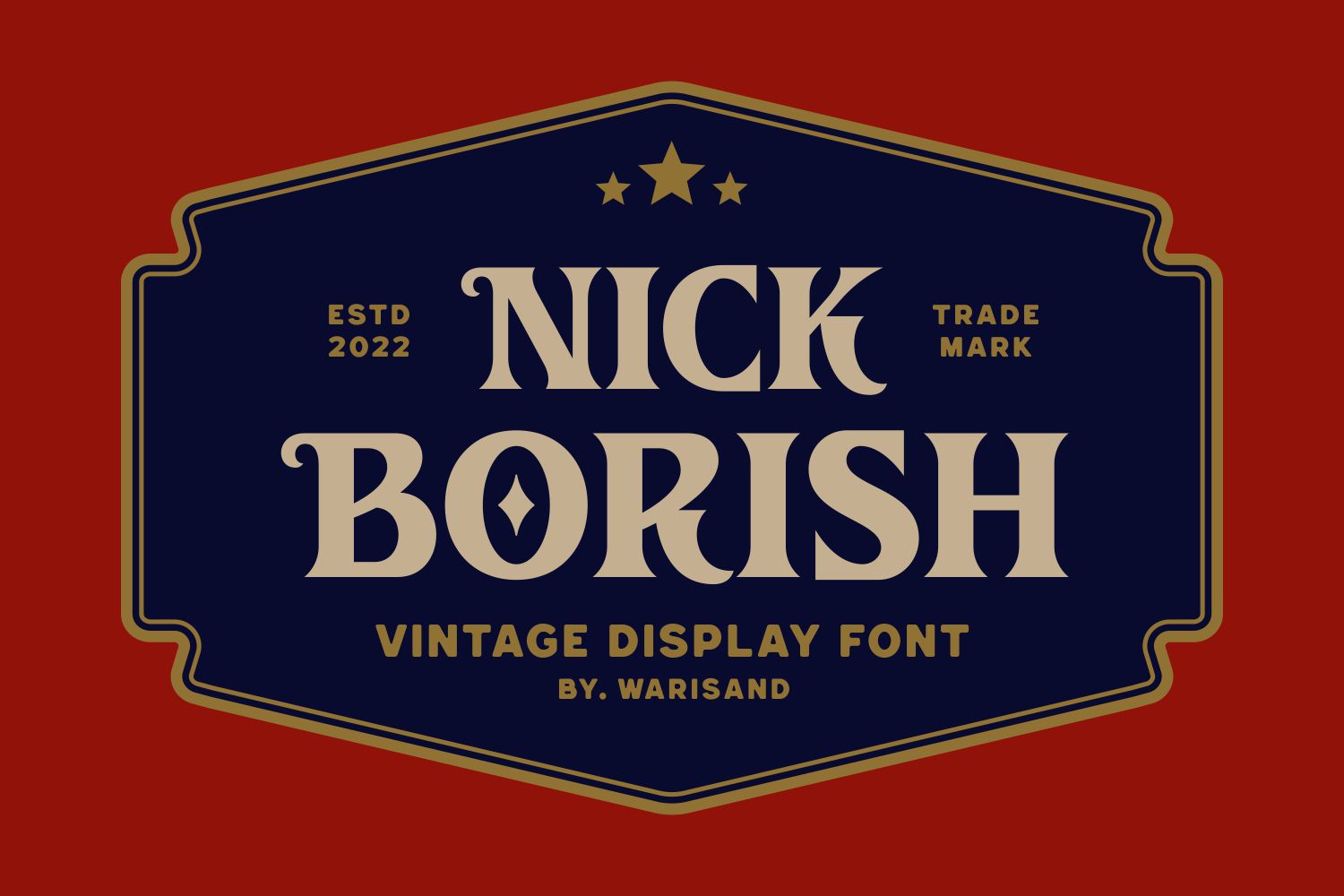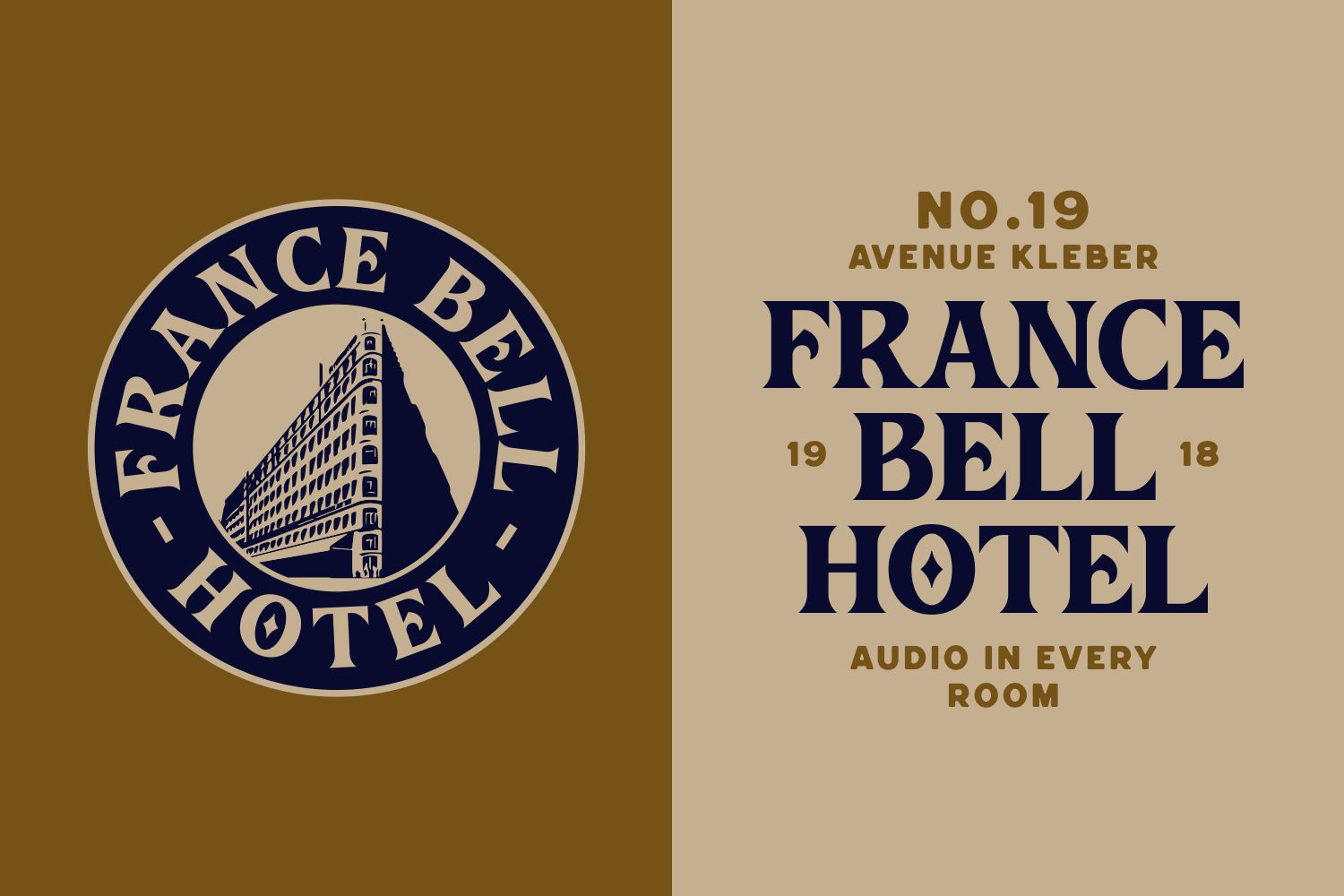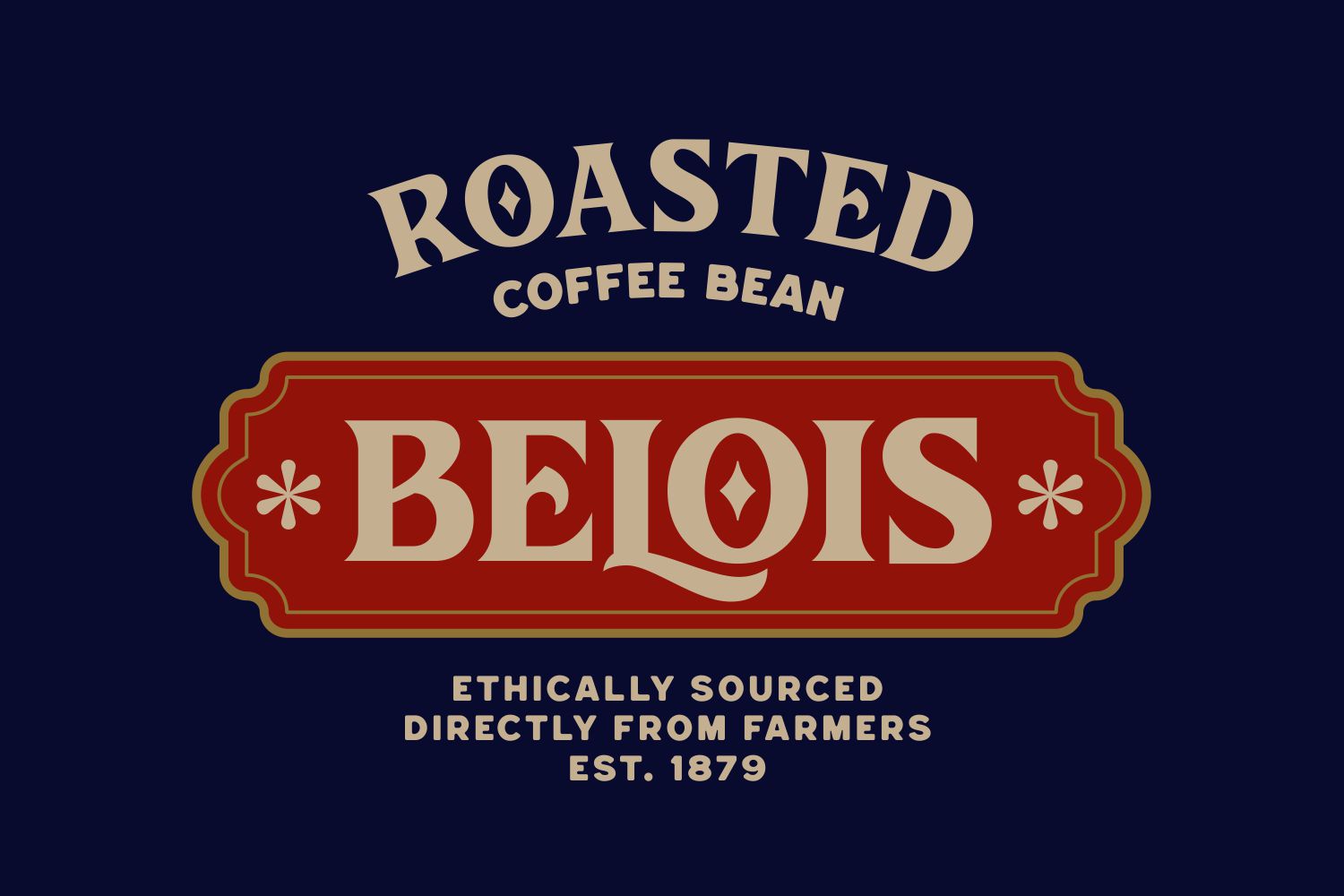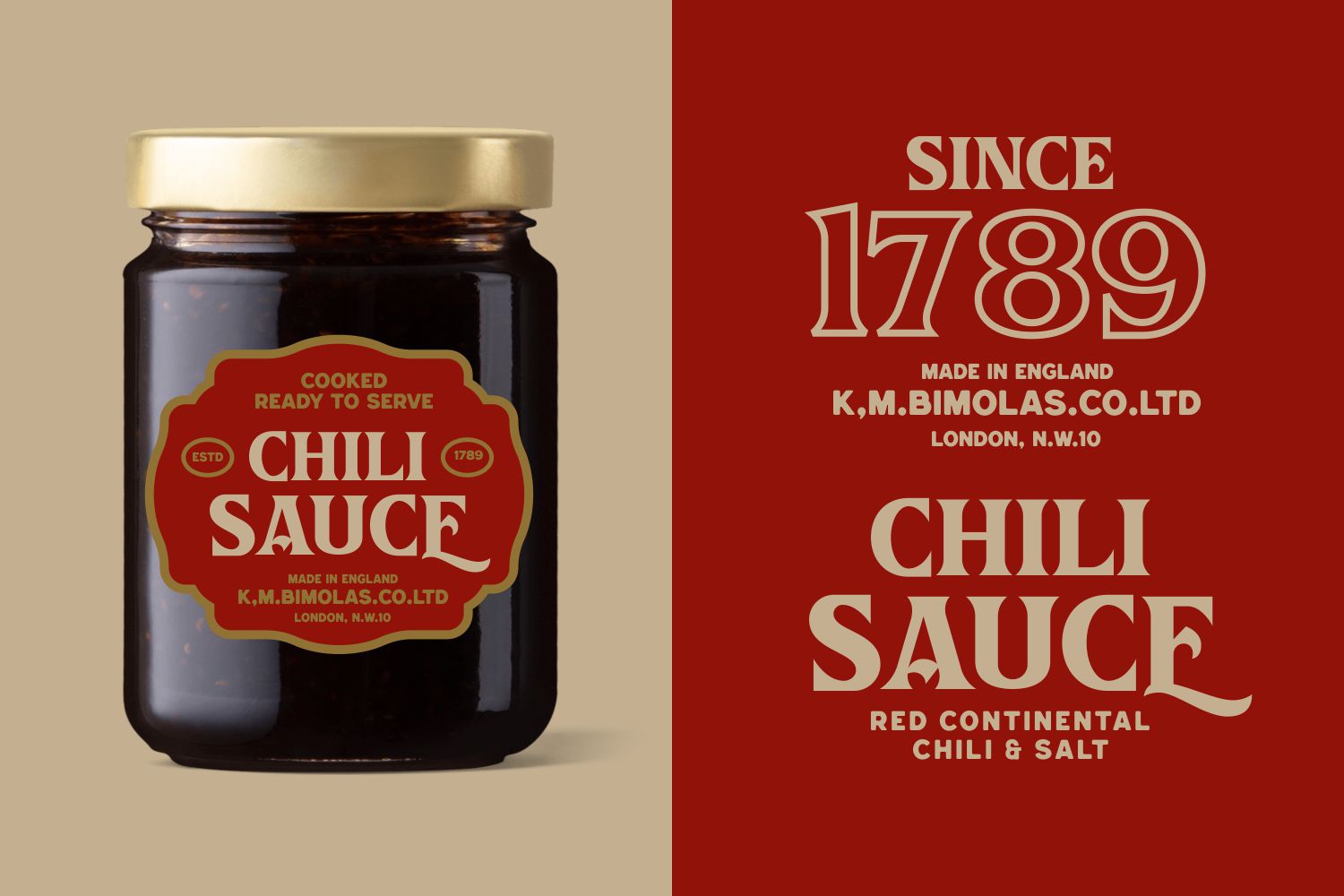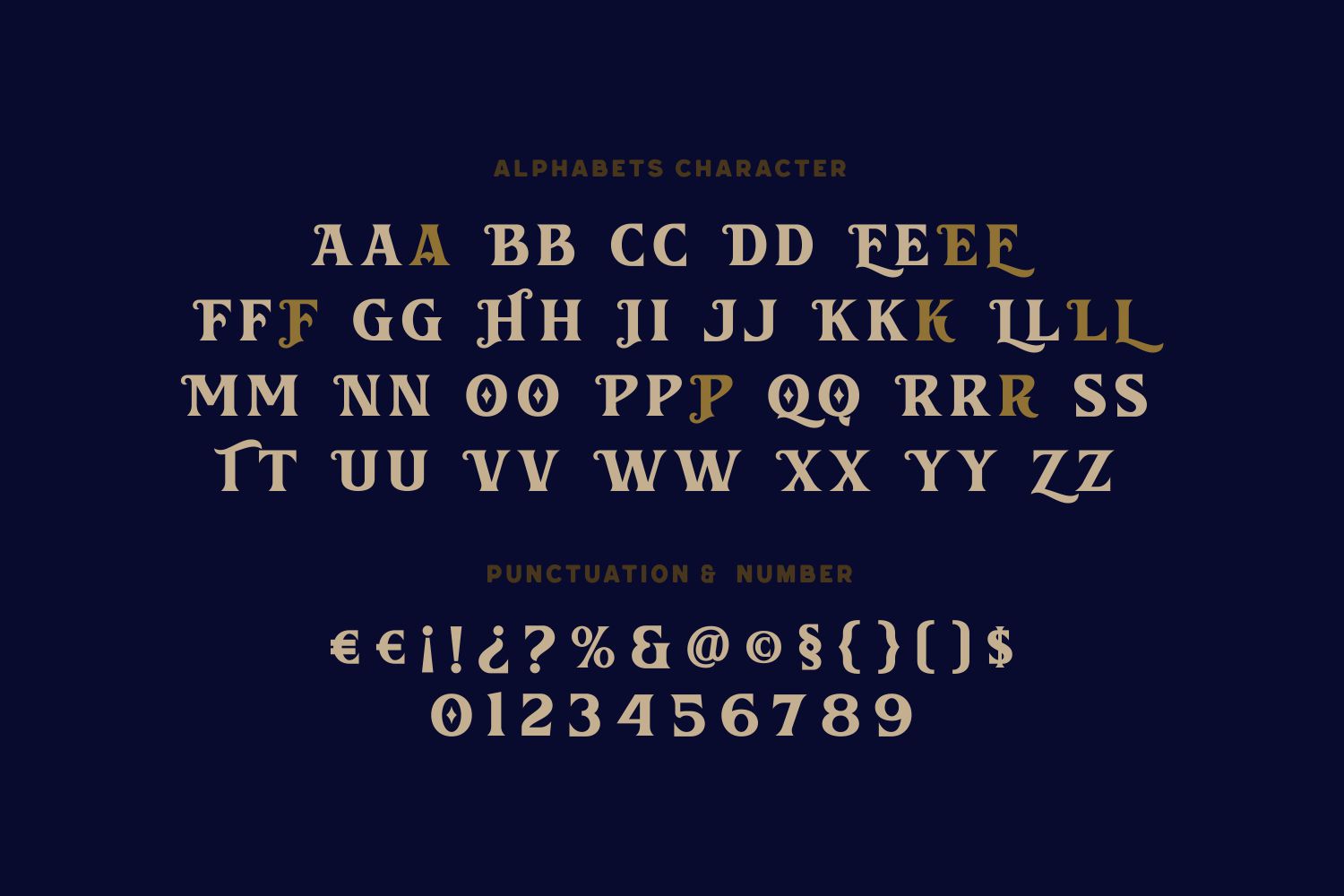
Nick Borish
Nick Borish is a strong and stylish vintage display font crafted with bold personality and sharp character. Inspired by traditional sign painting and classic beer labels, this font combines clean letterforms with subtle ornamental touches, including alternates and unique glyph details. With its all-caps style, it provides a striking presence perfect for headline purposes, packaging design, or branding that seeks authenticity and strength.
From retro hotel branding to coffee labels and crafted sauce jars, Nick Borish fits a wide range of classic design themes. Its balanced proportions and sharp serifs deliver an elegant yet commanding aesthetic, making it suitable for logos, signage, editorial titles, and merchandise with a nostalgic tone.